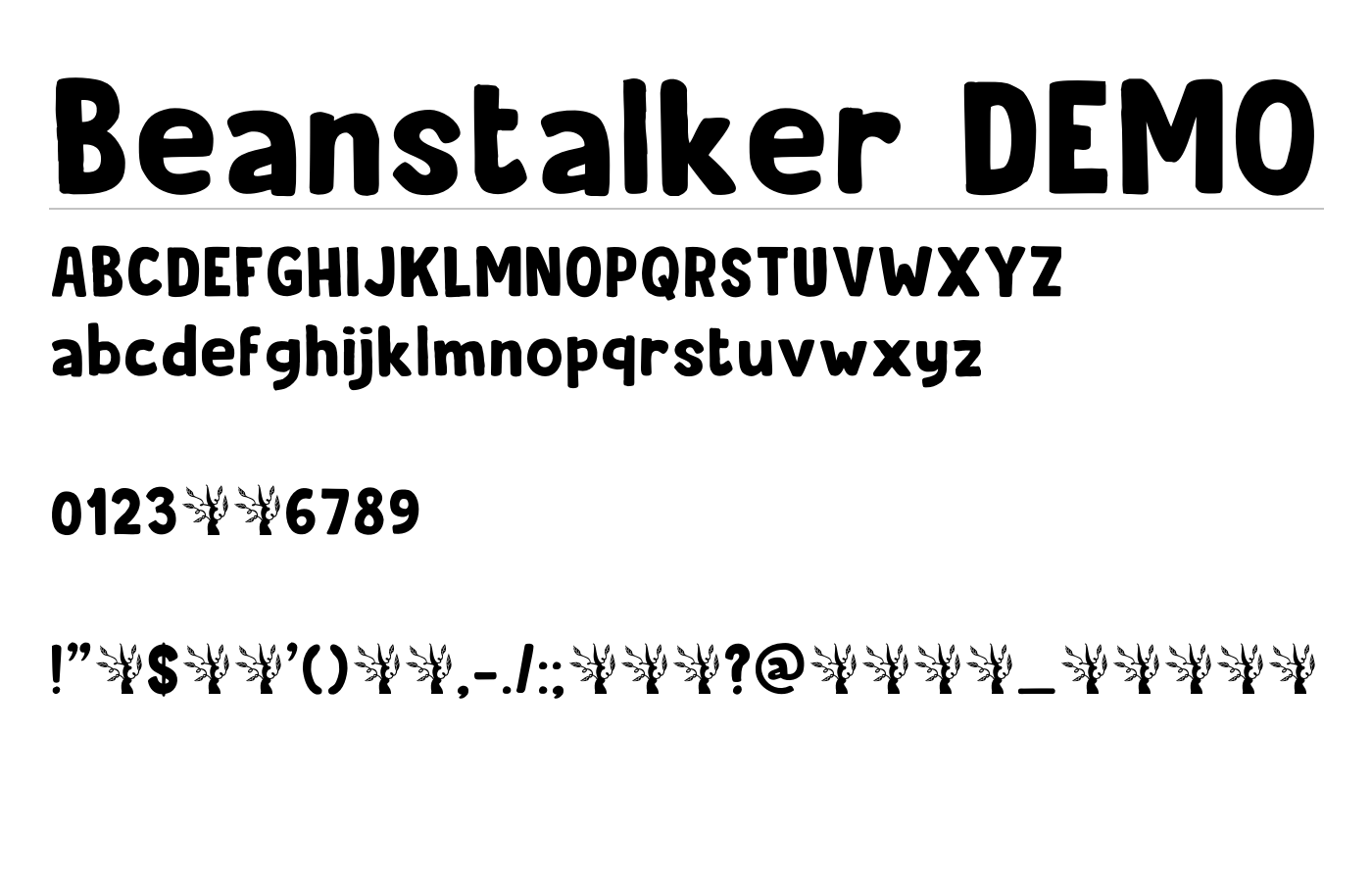
Beanstalker DEMO is a playful and bold sans serif font with a slightly irregular, hand-drawn feel that adds personality and charm. Its chunky weight and casual letterforms make it perfect for fun, informal designs like children’s books, posters, and branding that wants to convey creativity and friendliness. The unique decorative symbols add a whimsical touch, enhancing its appeal for playful, imaginative projects.
Beanstalker DEMO Font
About Beanstalker DEMO Font